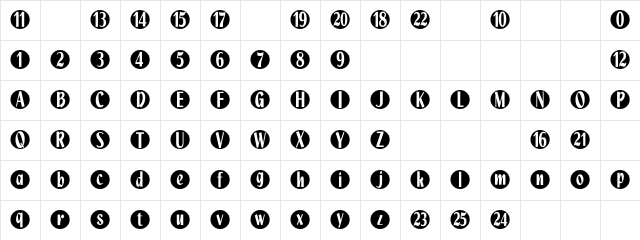
Surkle Regular
Design Context for Surkle Typeface
Surkle is a composed and adaptable typeface that performs quietly and consistently across a wide range of design contexts.
Pro Tip: Pair Surkle with a font of contrasting weight or personality to build a more expressive typographic hierarchy.